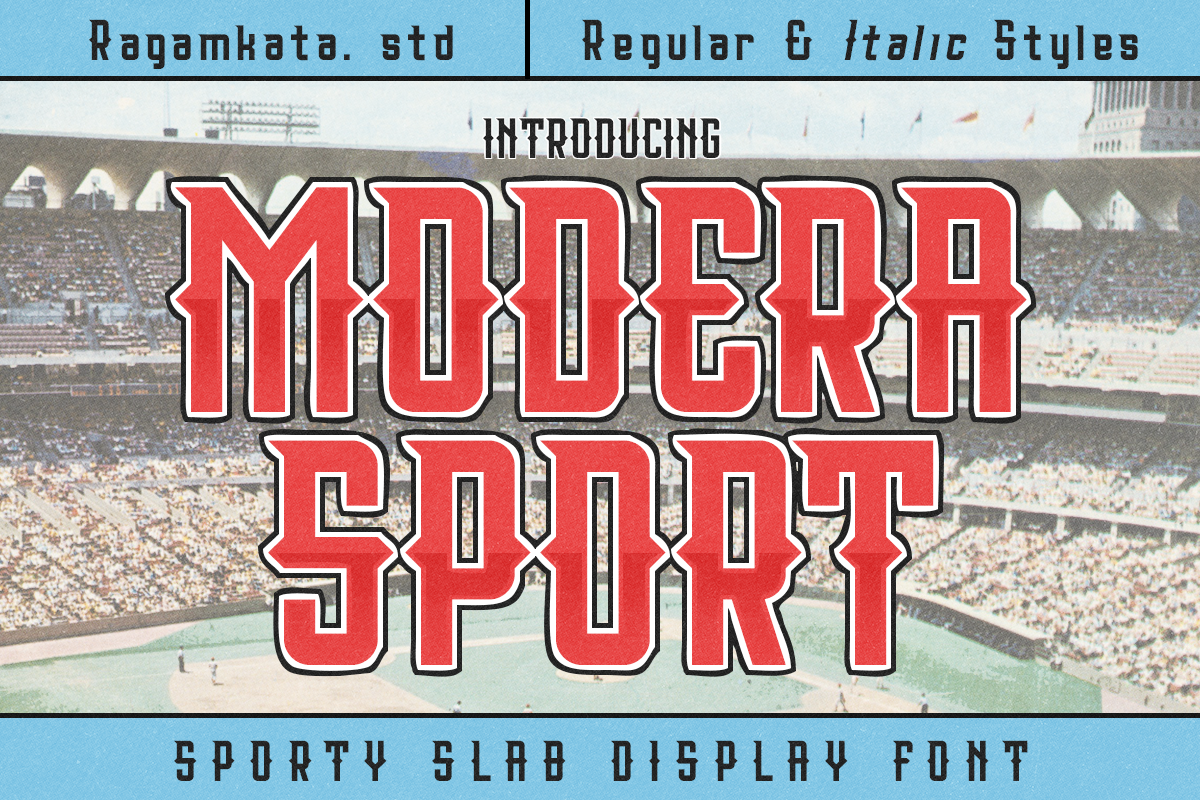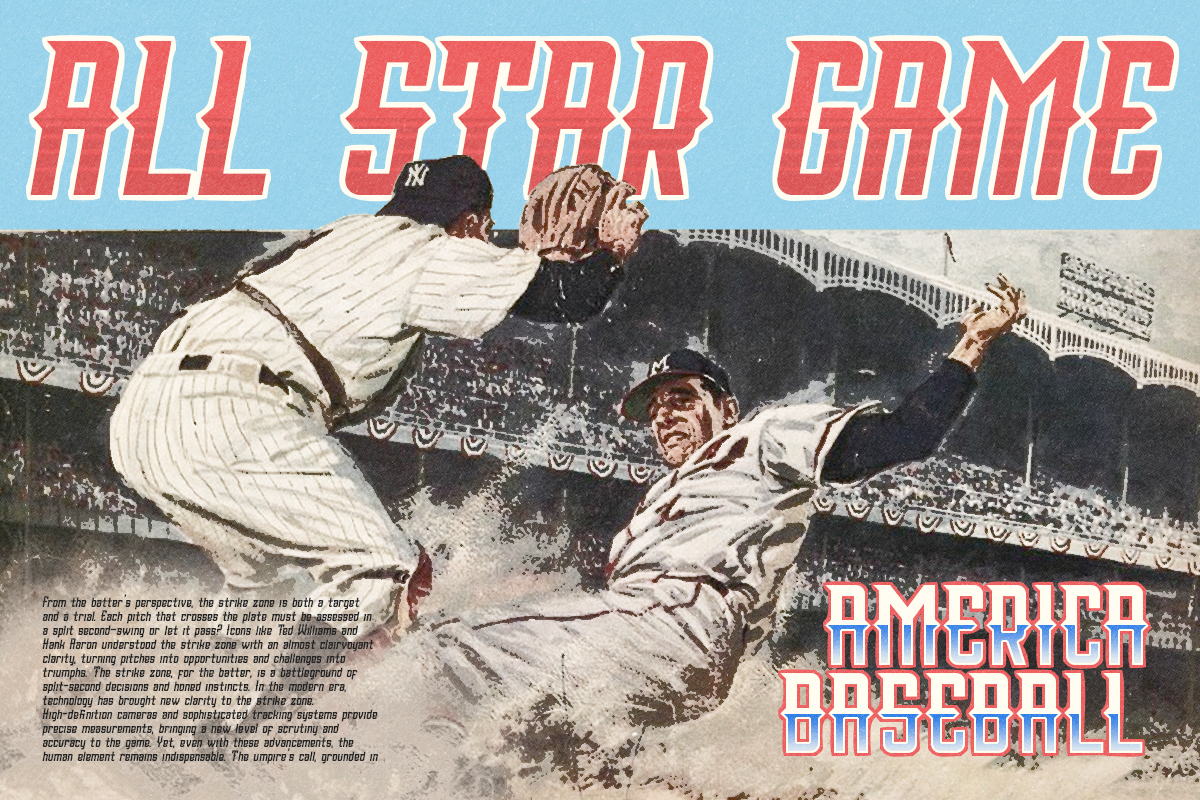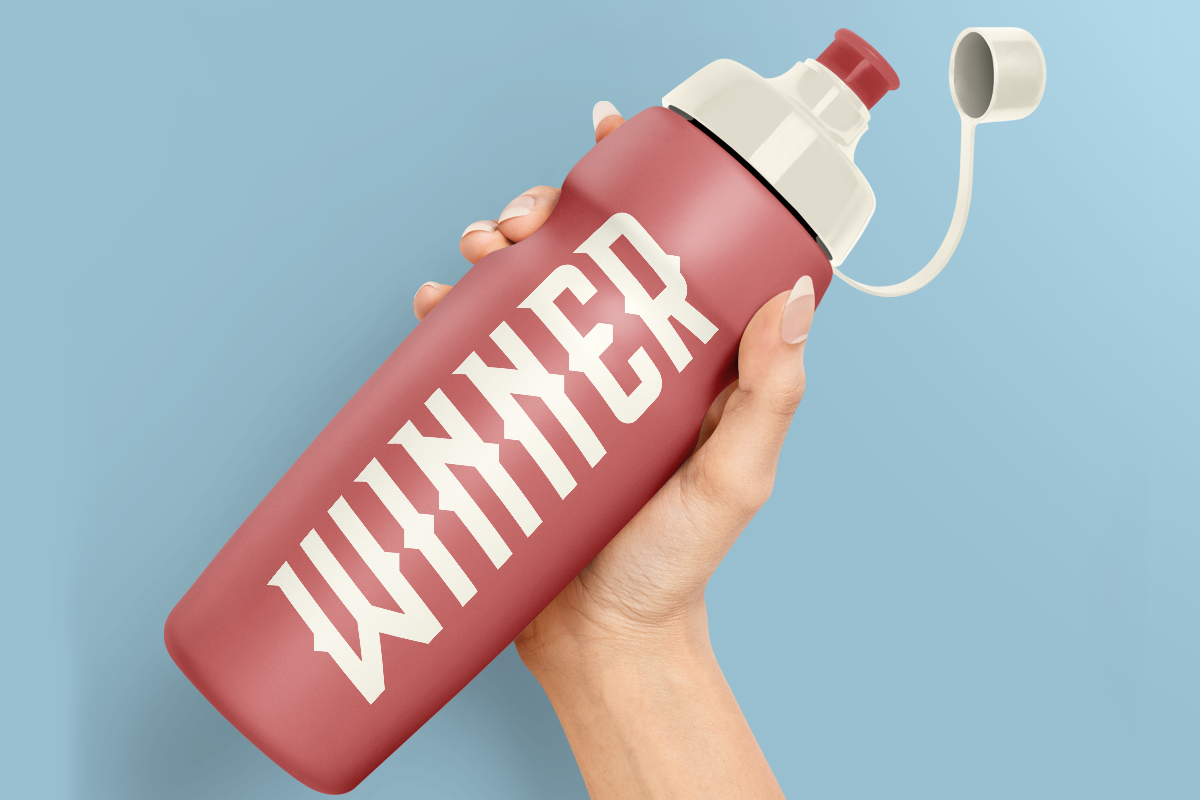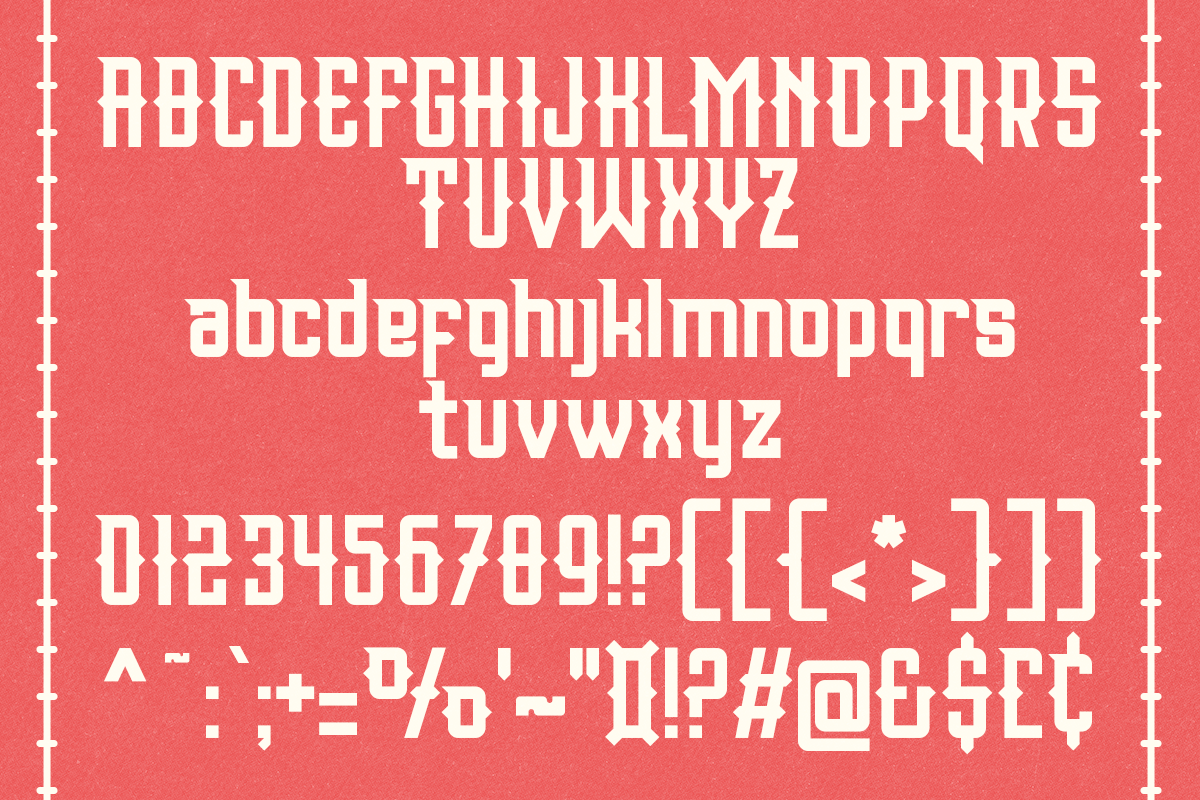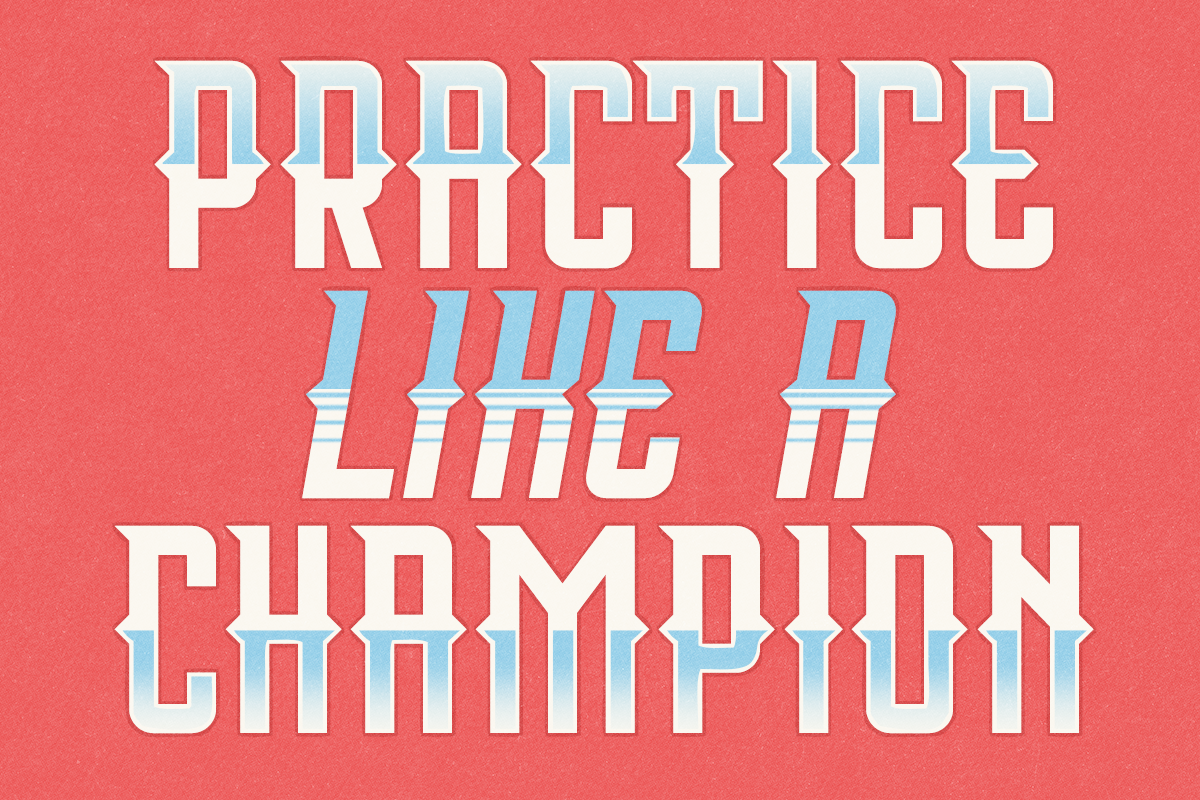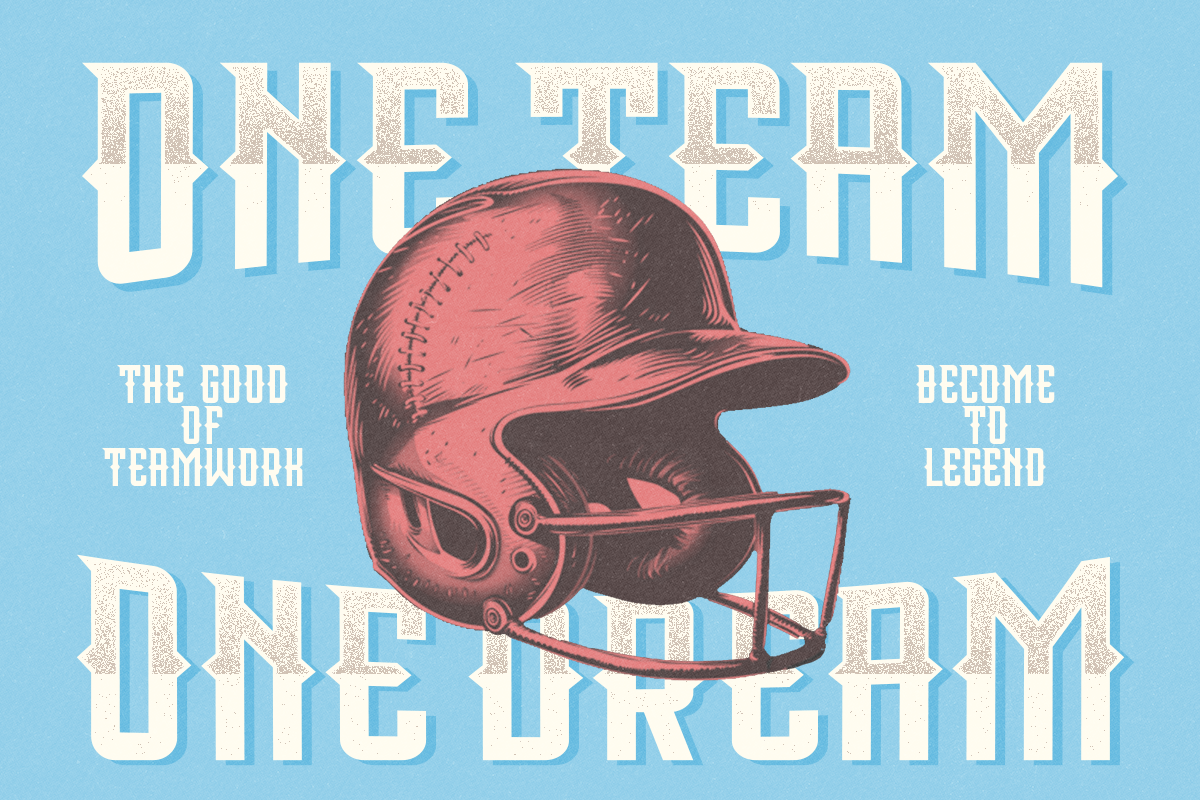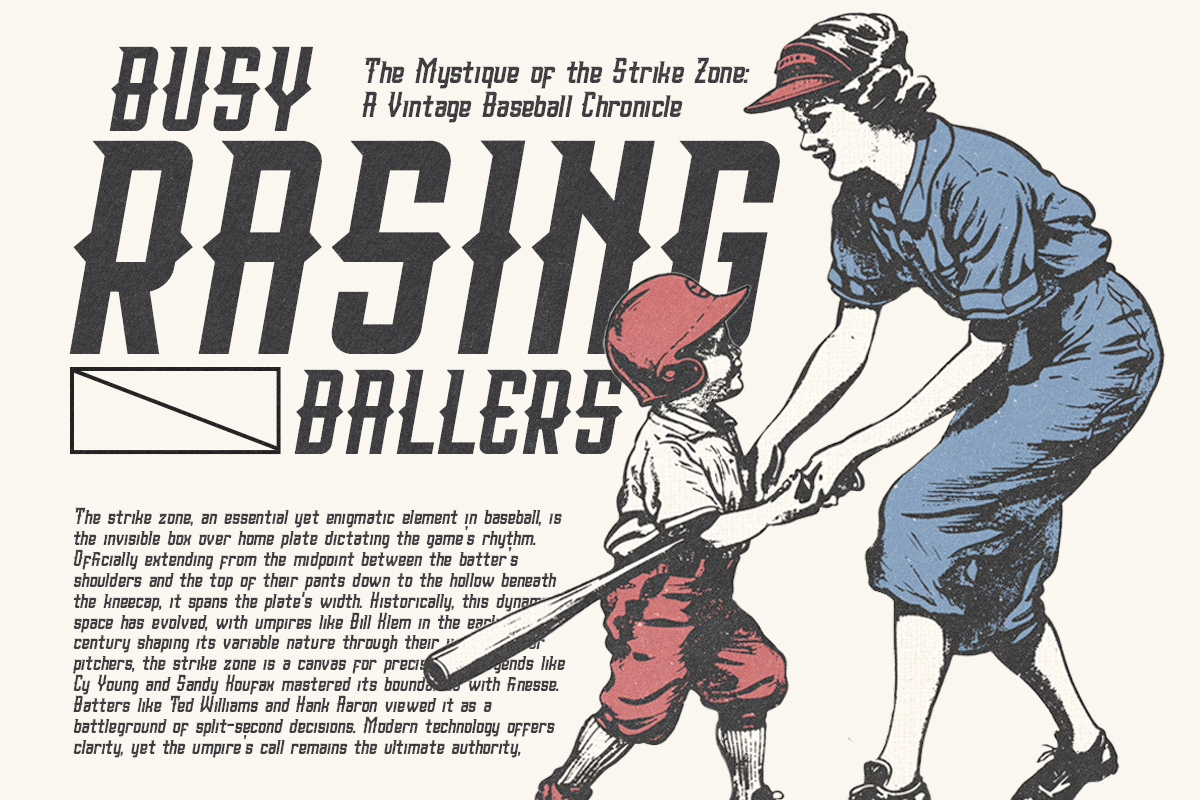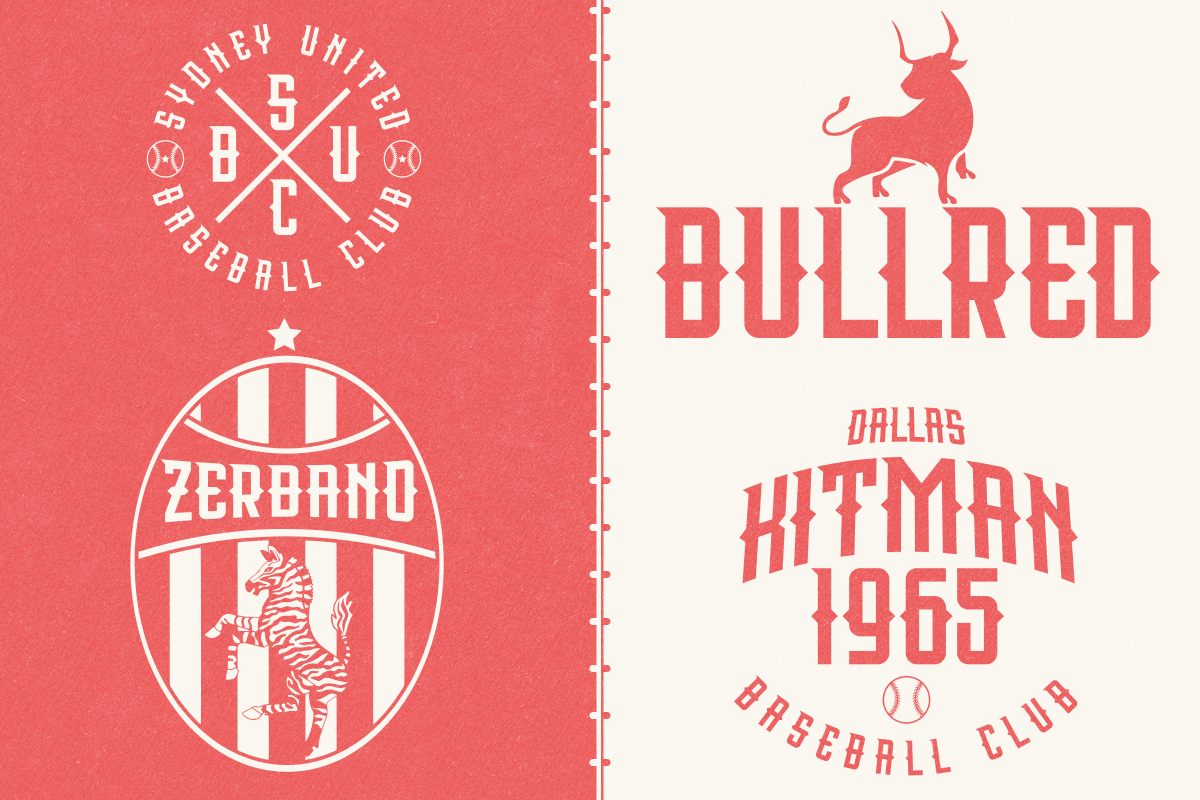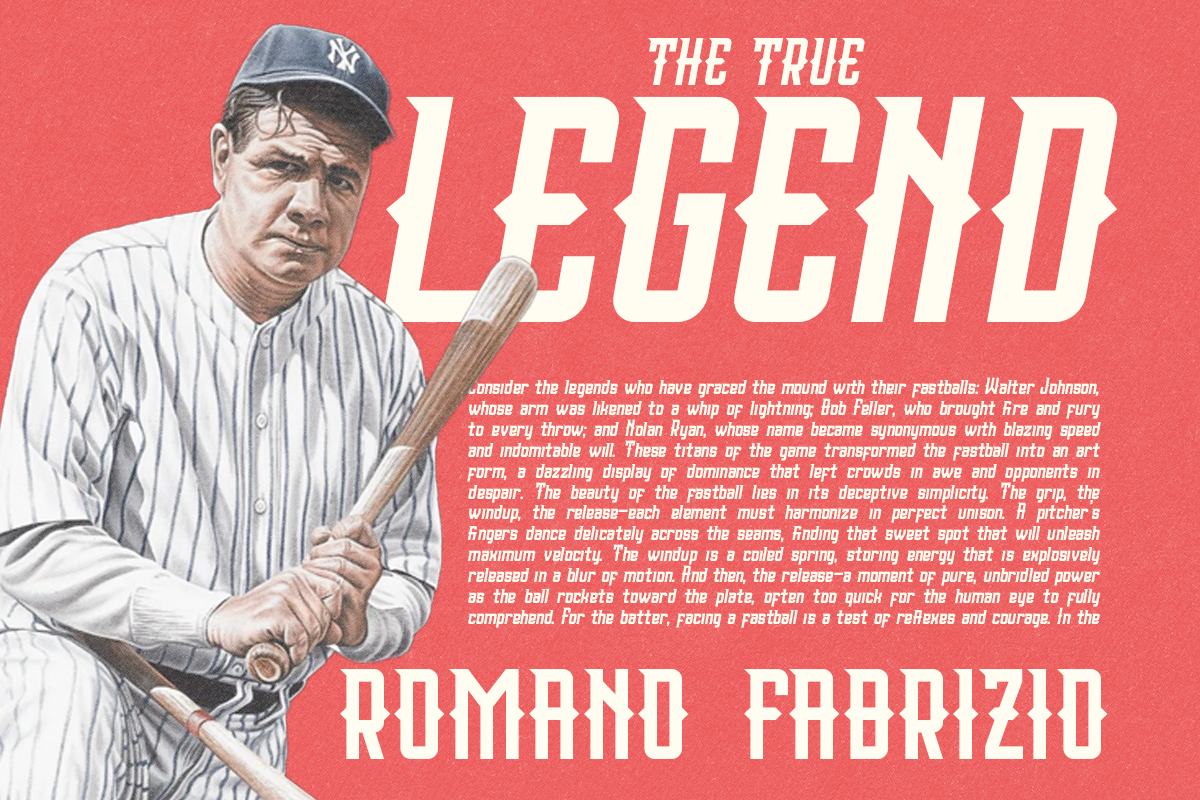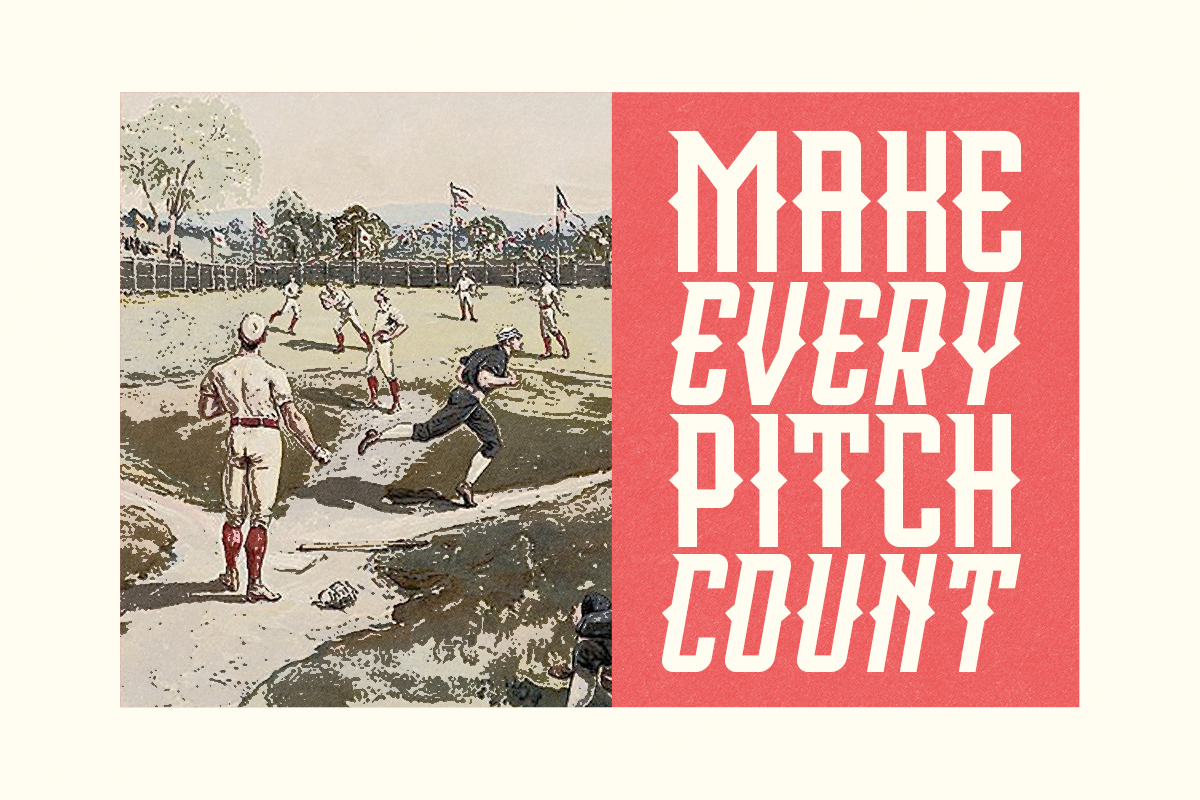
Modera Sport - Display Slab Font
Introducing Modera Sport, a sporty slab display font that combines the strength and power of athleticism with the rugged charm of old western letters. Perfect for sports logos, branding, posters, and apparel design, Modera Sport features two styles: Regular & Italic. Each style brings a unique flair to your projects, ensuring versatility and creativity.
With OpenType features, including stylistic sets, Modera Sport offers flexibility and customization to match your creative vision. This font includes both upper and lowercase vintage characters, adding authenticity and a naturally worn look. Modera Sport stands out with its strong and dynamic presence, making it an ideal choice for various creative projects.
- Two unique styles: Regular and Italic
- Strong, confident letterforms
- Punctuation & Number
Enhance your sports-themed designs with Modera Sport, the ultimate font for bold and impactful typography.